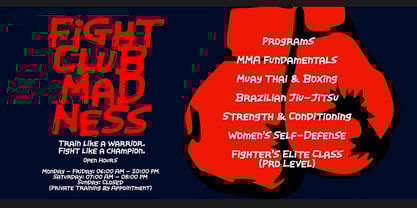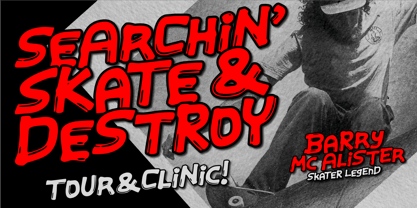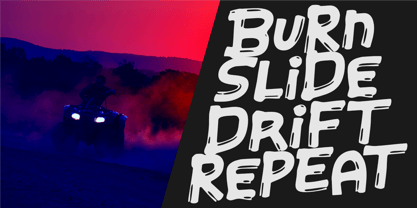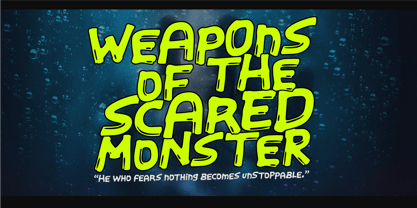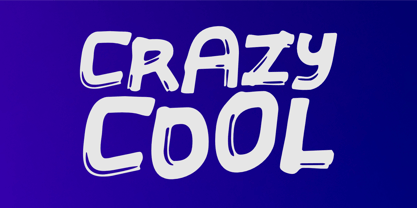
Crazy Cool
by Epiclinez
The Crazy Cool Font Family was designed by Aldy Sidik and published by Epiclinez. Crazy Cool contains 1 styles. More about this family
Crazy Cool Font is a bold hand-brushed typeface packed with raw energy, artistic flow, and authentic texture. Each stroke captures the spirit of freestyle brush lettering — spontaneous, expressive, and alive with motion. Designed for those who dare to stand out, this font brings instant attitude and personality to every project. Every letter in Crazy Cool Font feels handcrafted and dynamic, blending the edgy charm of street art with the clean power of digital design. The textured brush details make it perfect for logos, apparel, posters, headlines, movie titles, gaming visuals, music covers, and product packaging that need to make an unforgettable statement. This typeface isn’t just a font — it’s a vibe. It radiates coolness, rebellion, and creative confidence. From high-impact sports branding to edgy YouTube thumbnails, from fashion labels to motivational quotes, Crazy Cool Font gives your design the energy and punch it deserves. Whether you’re creating for print or digital, Crazy Cool keeps your visuals loud, fresh, and full of life. It’s the ultimate font for creators, artists, and designers who believe that cool isn’t just a look — it’s an attitude.